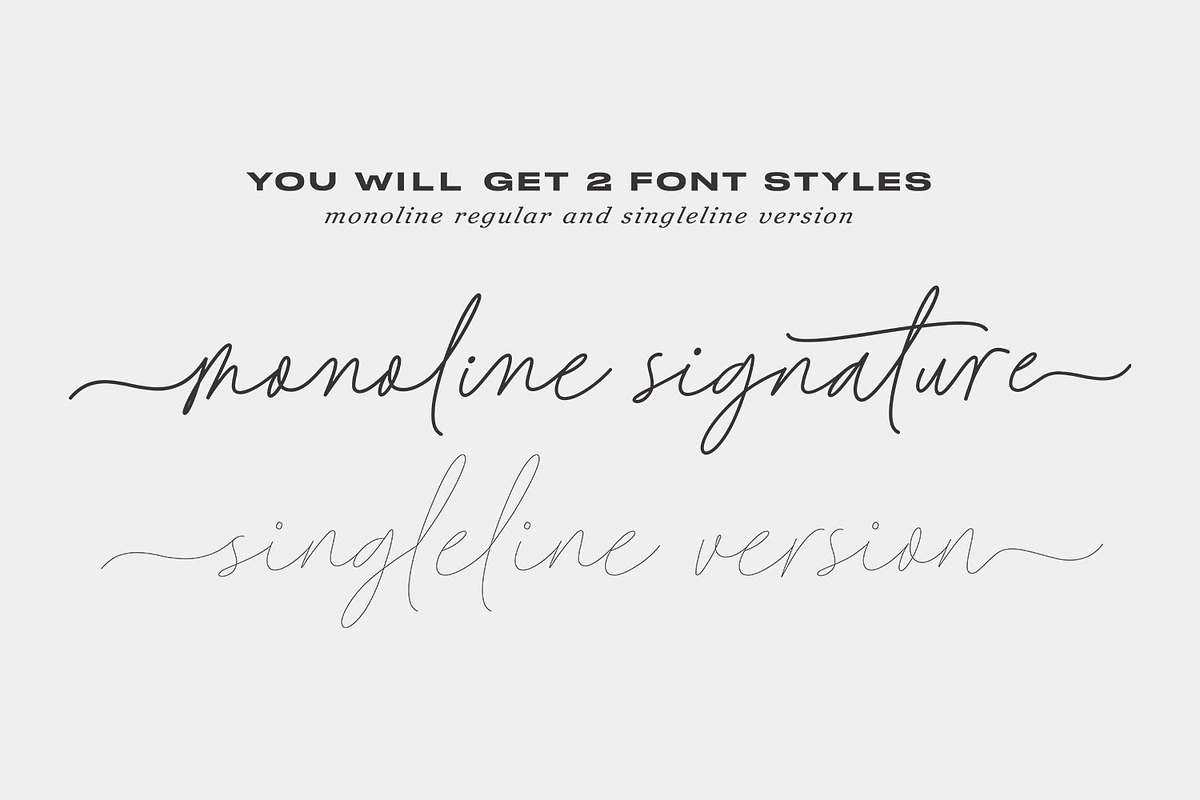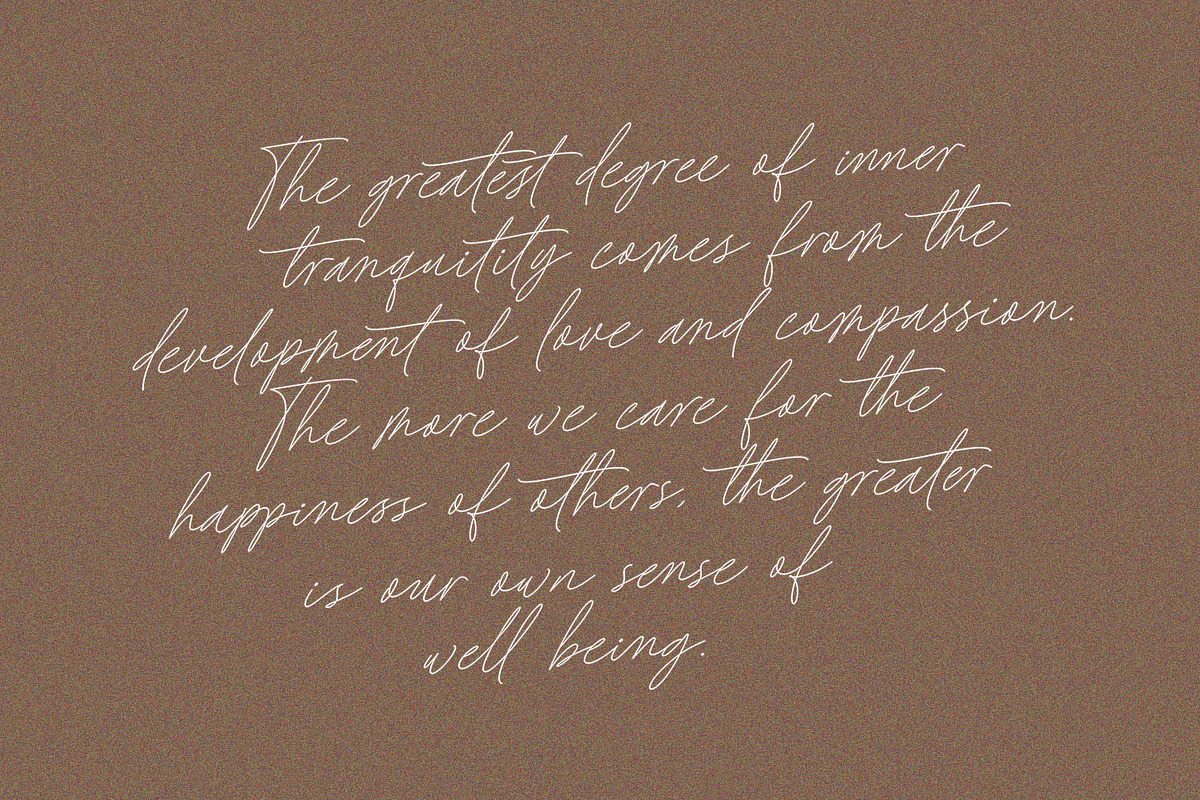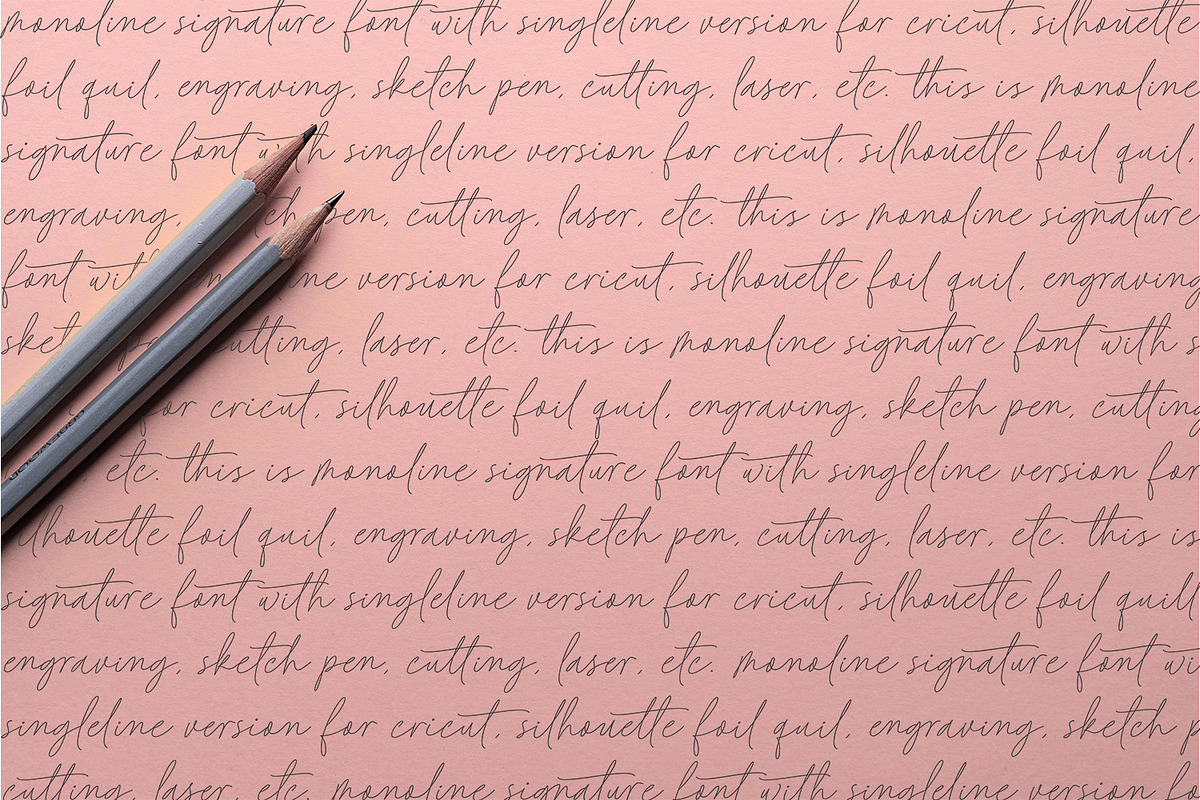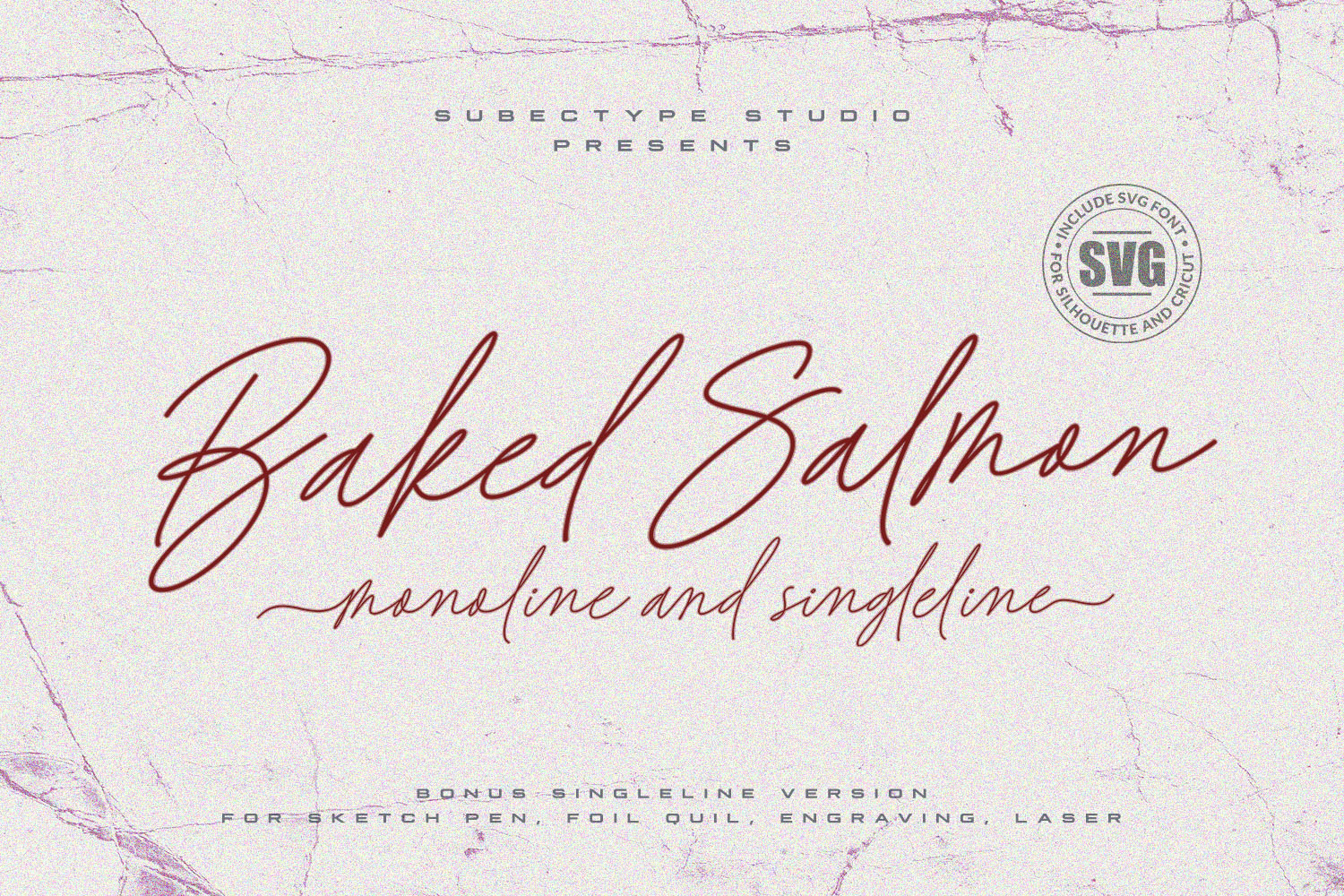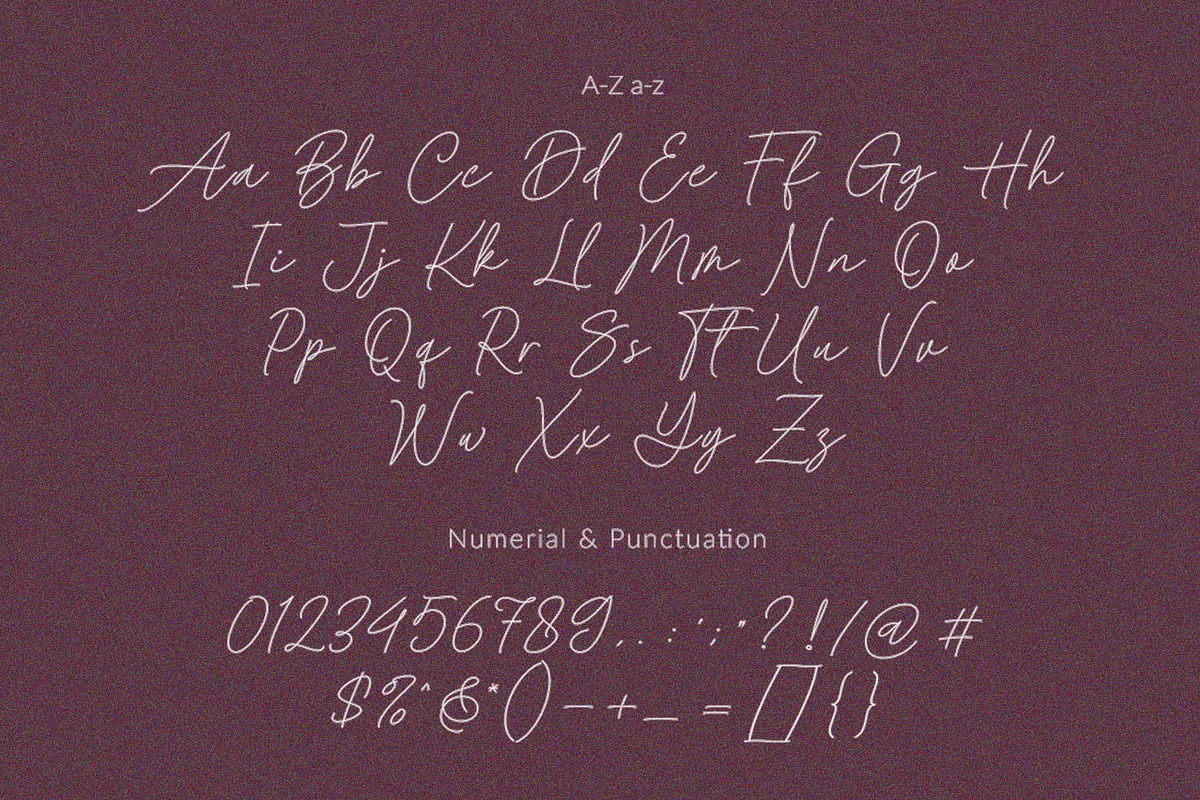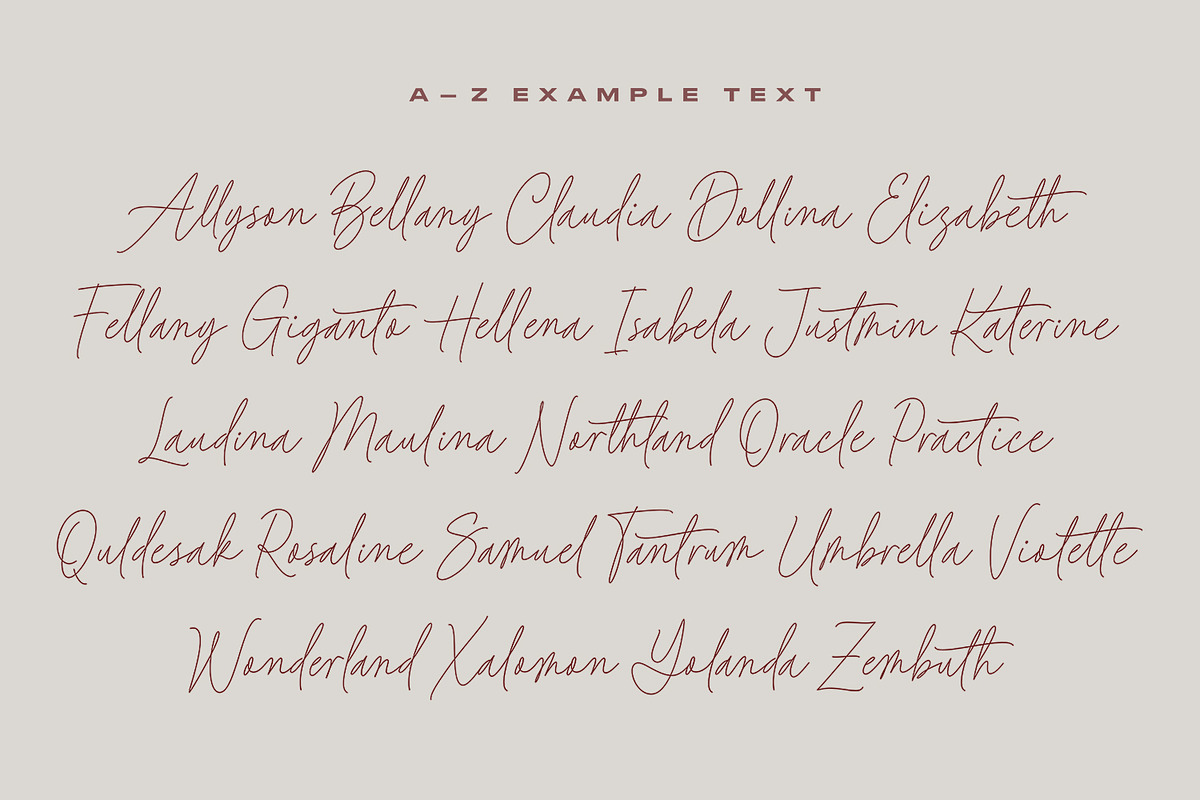
Baked Salmon - Monoline Script Font
Baked Salmon is a Chic and Lovely handwritten signature font with singleline version, described by a Love touch with natural handwritten style, perfect for your favorite projects. Fall in love with its incredibly distinct and timeless style and use it to create spectacular designs!